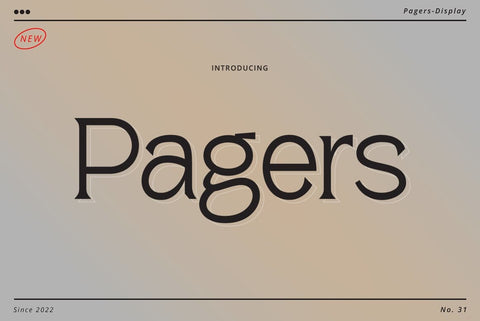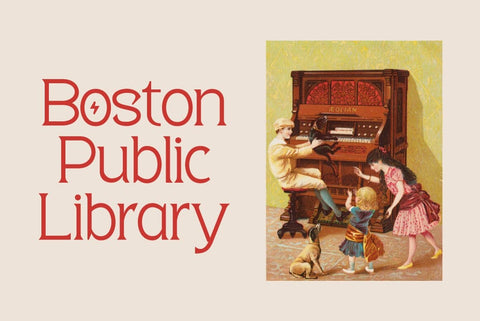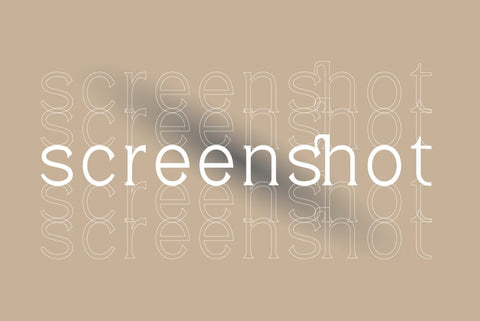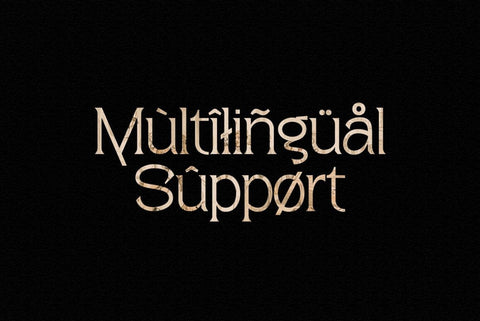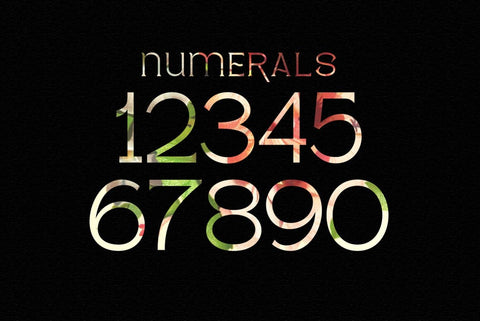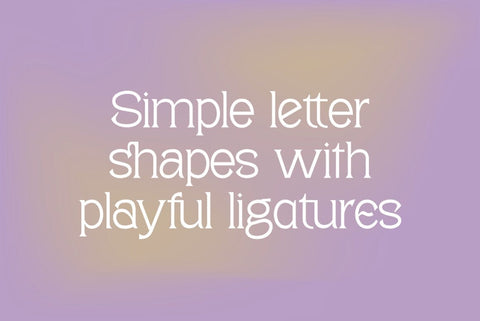
Pagers Display Typeface
Pagers - Modern Serif Font is a stylish font It has both modern and retro look. Comes with alternatives and ligatures, helps to create stunning logos, quotes, posts, blog posts. branding projects, magazine imagery, wedding invitations, and much more.